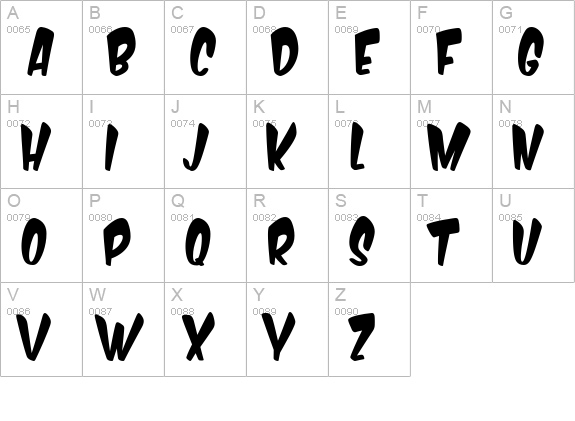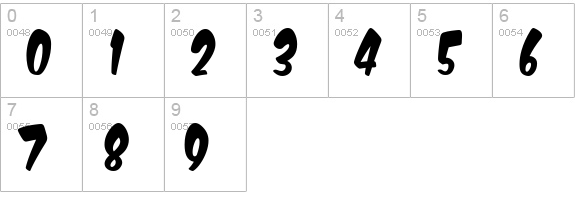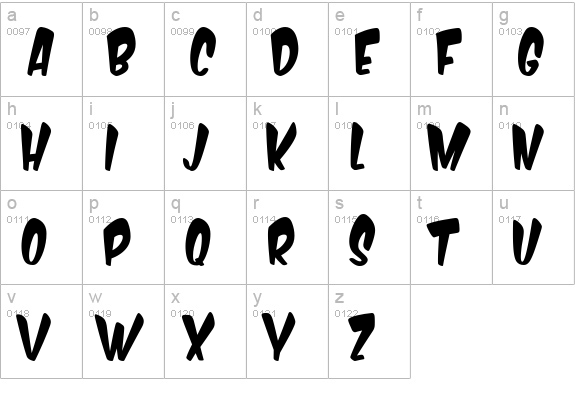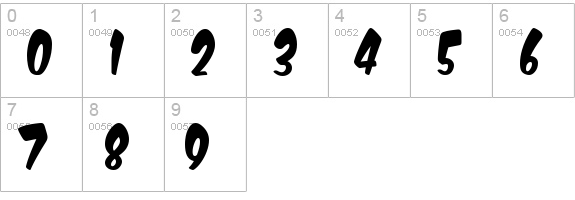
Komika Boogie Font Details
Komika Boogie font is a whimsical and playful typeface that exudes energy and fun. Its bold and dynamic design makes it perfect for projects that require a touch of creativity and personality. The unique letter shapes and quirky details give this font a distinct character that sets it apart from traditional typefaces. Whether you're working on a poster, logo, or social media graphic, Komika Boogie will add a lively and vibrant touch to your designs. Best of all, Komika Boogie font is available for free download at FontsMarket.com. So go ahead and grab this fantastic font to add some boogie to your projects today!